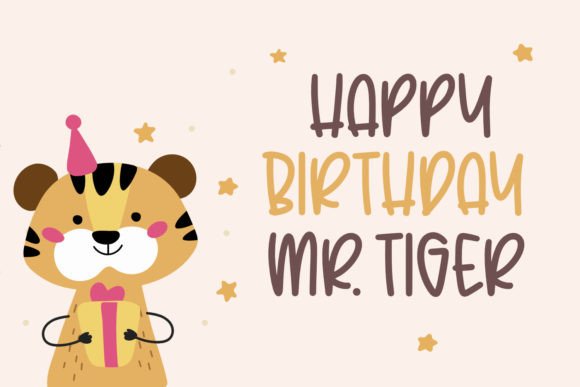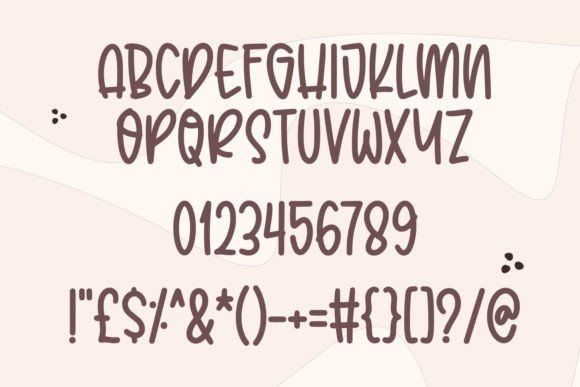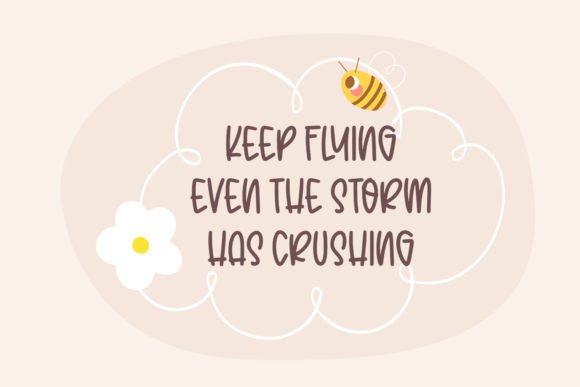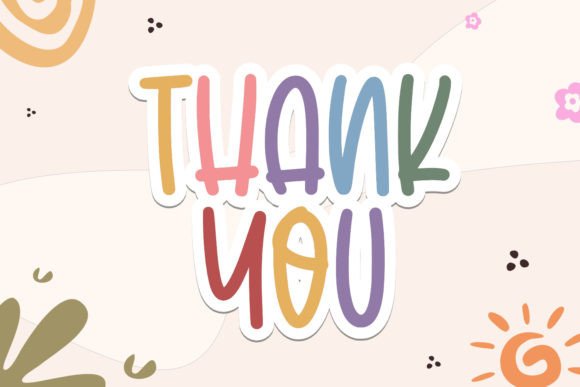
Introduction to Rilakia Youth Font
Remember that moment when you stumbled upon the perfect design element for your project? The one that brought it all together and made it truly special? For designers, finding the right font can be a game-changer, and that’s exactly what the Rilakia Youth Font does.
With its cute and trendy handwritten style, this font is a must-have for any creative project. Whether you’re designing a logo, branding, social media graphics, or invitations, the Rilakia Youth Font is sure to add a touch of friendliness and approachability. And the best part? It’s a high-quality design resource that’s available for free download, making it an invaluable addition to any designer’s toolkit.
As a versatile and easy-to-use font, Rilakia Youth Font is perfect for designers looking to add a personal touch to their projects. Its transparent background and clear lines make it a great choice for a variety of creative applications, from quotes and stationery to crafty DIY projects. With its friendly feel and high-quality design, it’s no wonder why the Rilakia Youth Font is a favorite among designers.
Key Features of Rilakia Youth Font
- Rilakia Youth Font is a free design resource ideal for creative projects requiring a modern and youthful feel.
- This high-quality font features a transparent background, allowing for seamless integration with various design elements.
- Rilakia Youth Font is characterized by its unique, playful letterforms and stylish flair, making it perfect for creative projects requiring a touch of sophistication.
- This font is available in a single weight, offering a clean and consistent aesthetic that is easy to read and versatile in its applications.
Honest Review: Rilakia Youth Font
I recently had the chance to work with the Rilakia Youth Font, and I must say it’s been a great addition to my design resource library. This free download is perfect for any creative project that needs a modern, playful touch.
- ✨ High quality, crisp lines and smooth curves make it ideal for digital use.
- ✨ The font is highly legible, even at smaller sizes, making it perfect for body text or captions.
- ✨ The font is available in a transparent background option, making it easy to use with complex backgrounds.
- ⚠️ The font doesn’t include a bold weight, which might be a concern for projects that require a stronger font weight.
- ⚠️ The font doesn’t support as many languages as I would have liked, which could be a limitation for international projects.
Overall, I’m really impressed with the Rilakia Youth Font. It’s a great addition to any designer’s library, and I would definitely recommend it for creative projects that require a modern, playful feel. With a few minor limitations, this font is sure to become a staple in my design workflow.